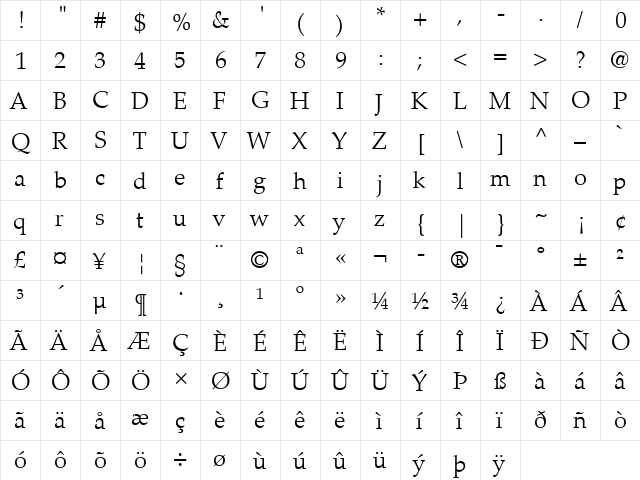
Palatino LT Light Regular
Design Context for Palatino LT Light Typeface
Palatino LT Light takes a measured approach to typography — its balanced proportions and neutral character make it a reliable workhorse for both digital and print work. Its slender proportions lend an understated elegance to any composition.